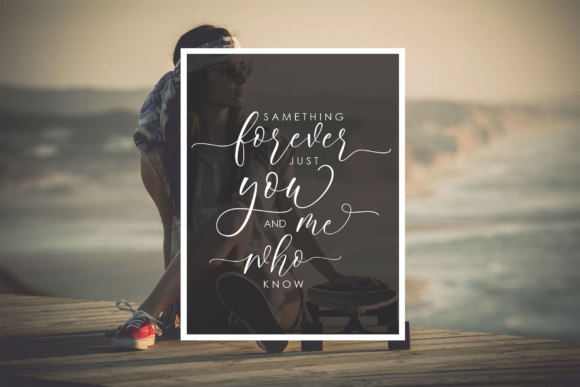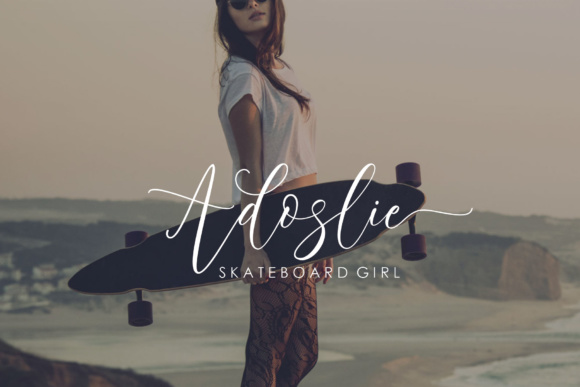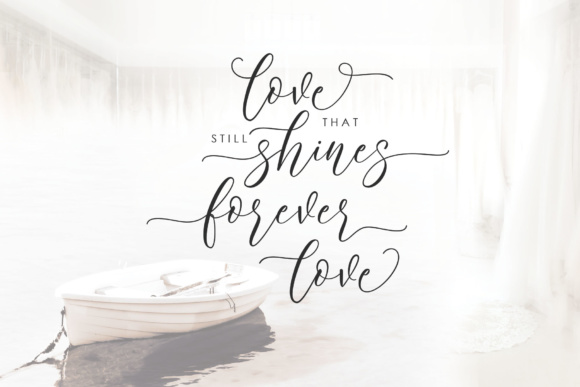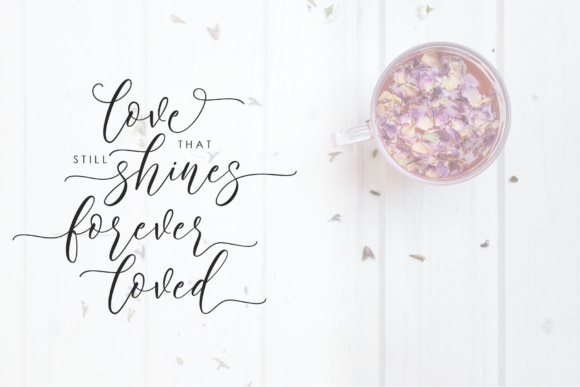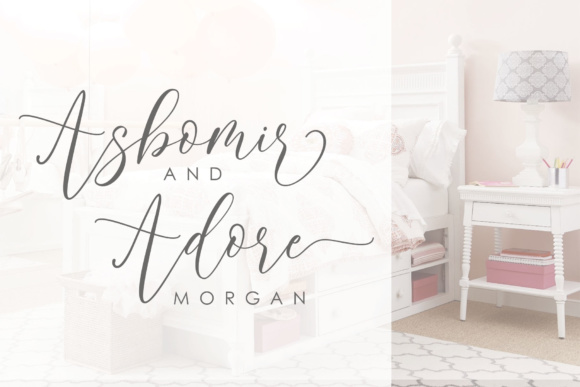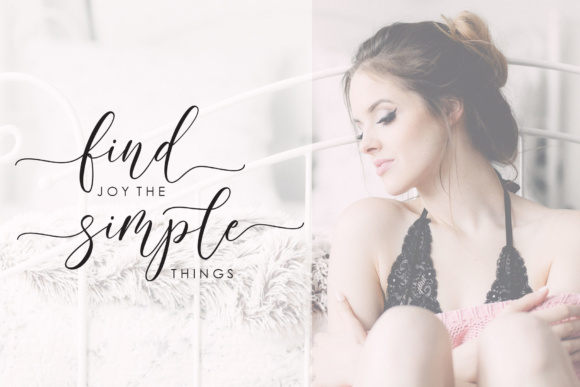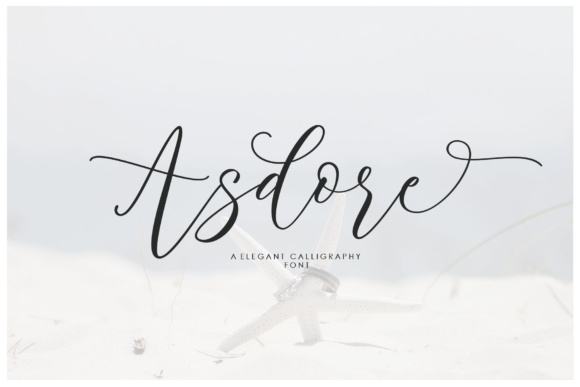
Introducing Asdore Font: Elevate Your Designs with Elegance and Whimsy
In the world of typography, fonts play a crucial role in conveying the tone and personality of a design. For those seeking a touch of glamour with a relaxed look, Asdore Font is an excellent choice. This elegant and bouncy script font is perfect for designers and crafters who want to add a dash of sophistication and playfulness to their projects.
What is Asdore Font?
Asdore Font is a beautifully crafted script font that exudes elegance and whimsy. Its unique blend of refined and casual elements makes it an ideal choice for a wide range of design applications, from luxury branding and advertising to packaging and digital media. With its flowing lines and bouncy curves, Asdore Font adds a touch of glamour to any project, making it perfect for designers who want to create a lasting impression.
Key Features of Asdore Font
One of the standout features of Asdore Font is its extensive range of stylistic alternates. This font comes with tons of alternate characters, allowing designers to add a unique twist to their text and create a truly customized look. With Asdore Font, you can give your projects a special and extravagant look that sets them apart from the rest.
Why Choose Asdore Font?
So, why should you choose Asdore Font for your next design project? Here are just a few reasons:
- Elegance and Whimsy**: Asdore Font offers the perfect blend of elegance and playfulness, making it suitable for a wide range of design applications.
- Customization Options**: With its extensive range of stylistic alternates, Asdore Font provides designers with endless opportunities for customization and creativity.
- High-Quality Design**: Asdore Font is designed with precision and attention to detail, ensuring a high-quality look that will elevate your designs.
- Versatility**: Asdore Font is versatile and can be used for a variety of design projects, from luxury branding and advertising to packaging and digital media.
Use Cases for Asdore Font
Asdore Font is a versatile font that can be used for a wide range of design applications, including:
- Luxury Branding**: Use Asdore Font to create a luxurious and sophisticated brand identity that exudes elegance and refinement.
- Advertising**: Add a touch of glamour to your advertising campaigns with Asdore Font, perfect for promoting high-end products or services.
- Packaging**: Use Asdore Font to create eye-catching packaging that stands out on store shelves and adds a touch of whimsy to your product design.
- Digital Media**: Asdore Font is perfect for digital media, including social media graphics, blog posts, and website headers.
Tips for Using Asdore Font
To get the most out of Asdore Font, here are a few tips:
- Experiment with Stylistic Alternates**: Take advantage of Asdore Font’s extensive range of stylistic alternates to add a unique twist to your text.
- Pair with Other Fonts**: Pair Asdore Font with other fonts to create a customized look that suits your design needs.
- Use for Headings and Titles**: Use Asdore Font for headings and titles to add a touch of elegance and whimsy to your design.
In conclusion, Asdore Font is an elegant and bouncy script font that is perfect for designers and crafters seeking to add a touch of glamour with a relaxed look to their projects. With its extensive range of stylistic alternates and high-quality design, Asdore Font is an excellent choice for a wide range of design applications. Whether you’re working on a luxury branding project, advertising campaign, or packaging design, Asdore Font is sure to elevate your designs and leave a lasting impression.